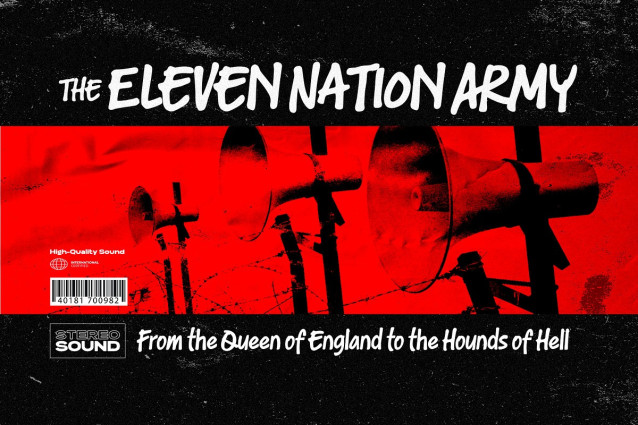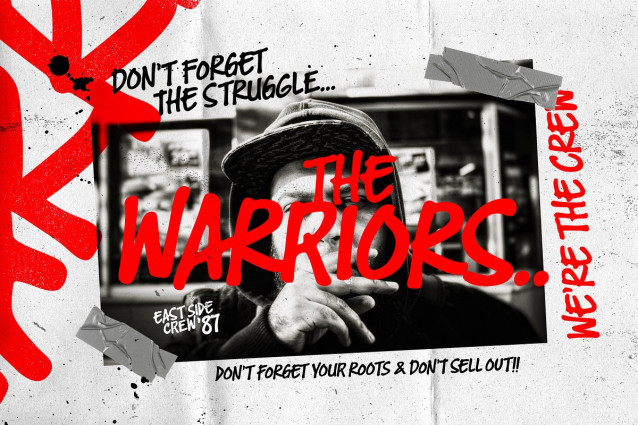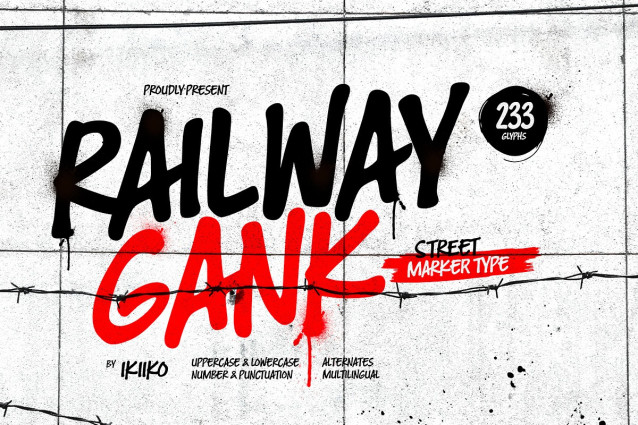
Railway Gank Font
Railway Gank Font – Street Marker Type, created by ikiiko. The free-spirited brush strokes of hand lettering and the strong, urban attitude of street markings combine electrifyingly to create Railway Gank. This font effortlessly jumps out and attracts attention because it embodies the fervor of the streets and the unvarnished reality of graffiti. Railway Gank‘s brush-style aesthetics give it a handcrafted, real charm. Its flaws and differences give it a unique personality and capture the actual spirit of street art, where each stroke is distinctive.
Railway Gank uppercase letters exude confidence and flare, while the lowercase letters give off a more laid-back and welcoming vibe. It is a versatile option for numerous design concepts because of the contrast’s ability to create a pleasing equilibrium.
This typeface is perfect for an poster event, book cover, movie title, streetwear stuff, magazine layout, quotes, or simply as a stylish text overlay to any background image.